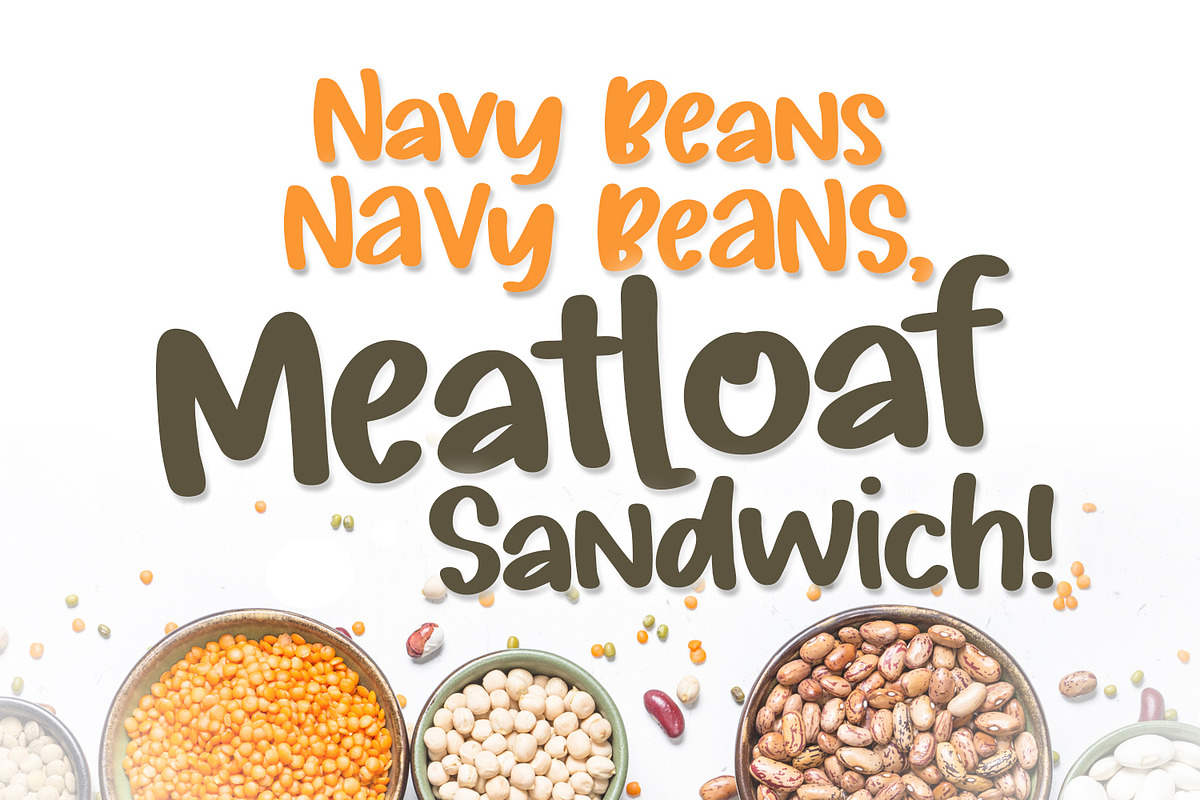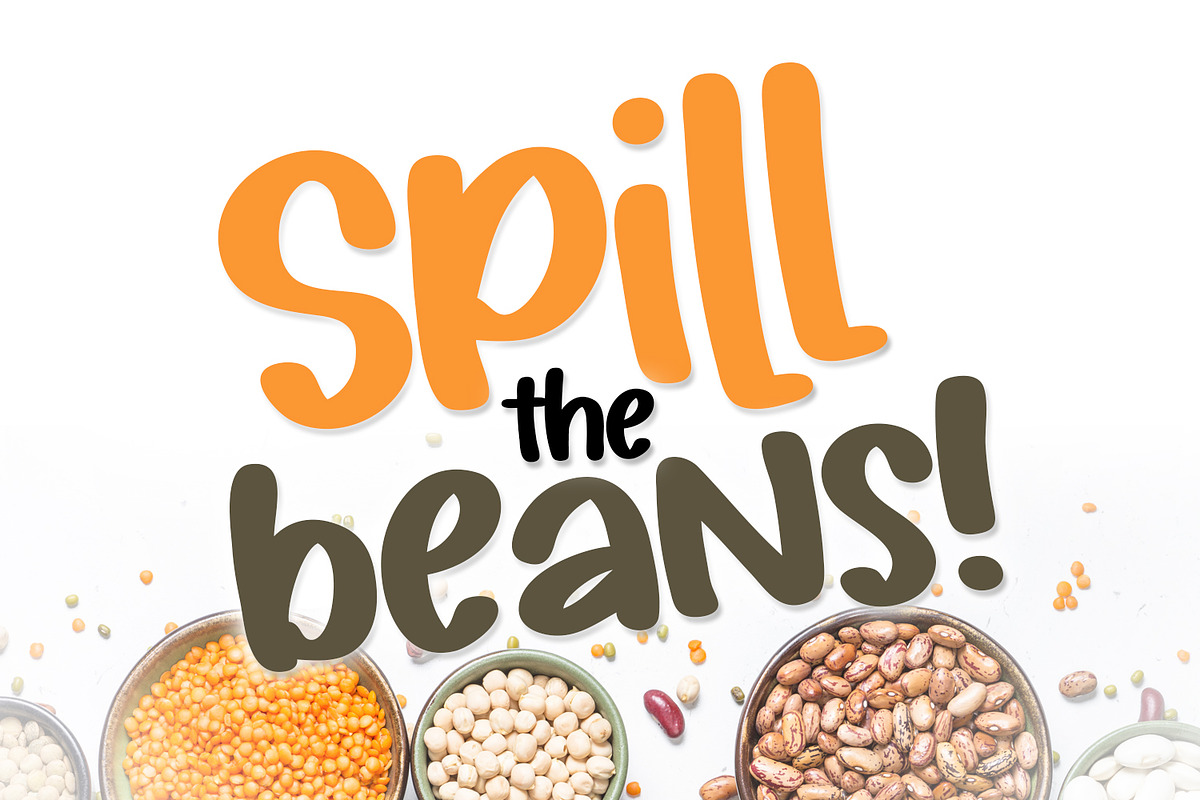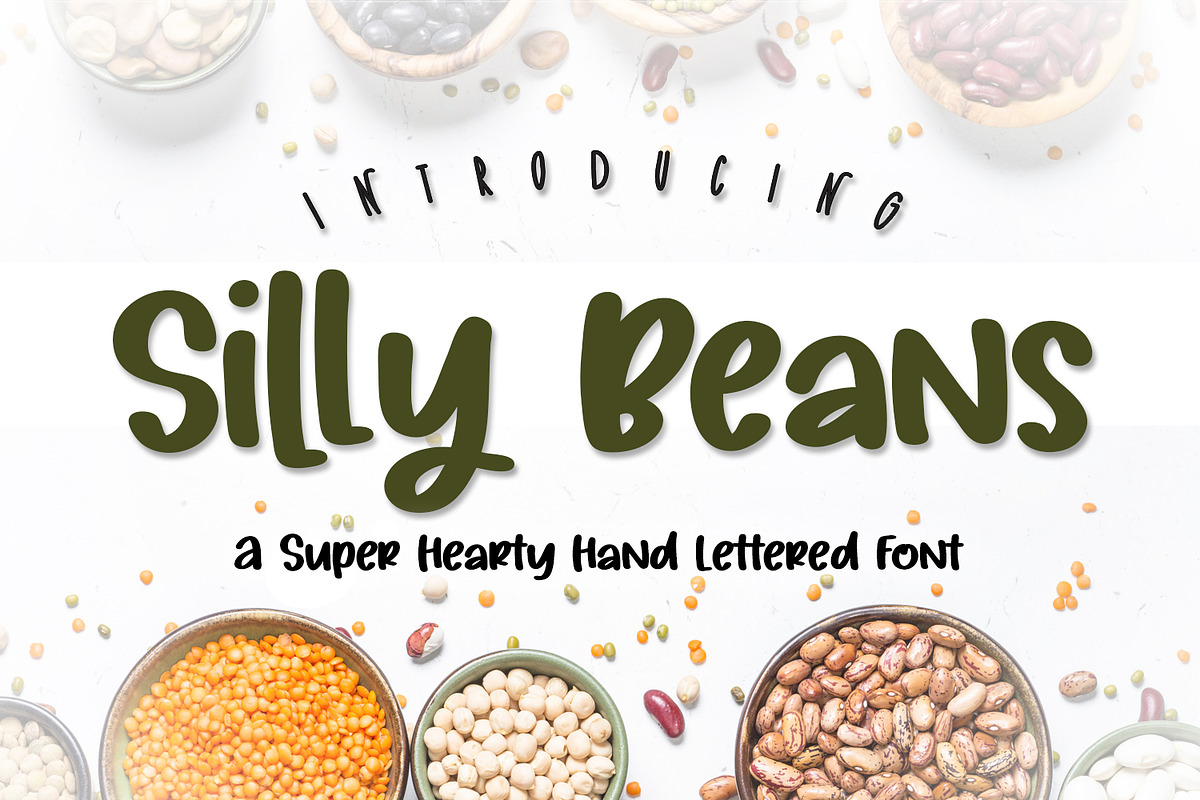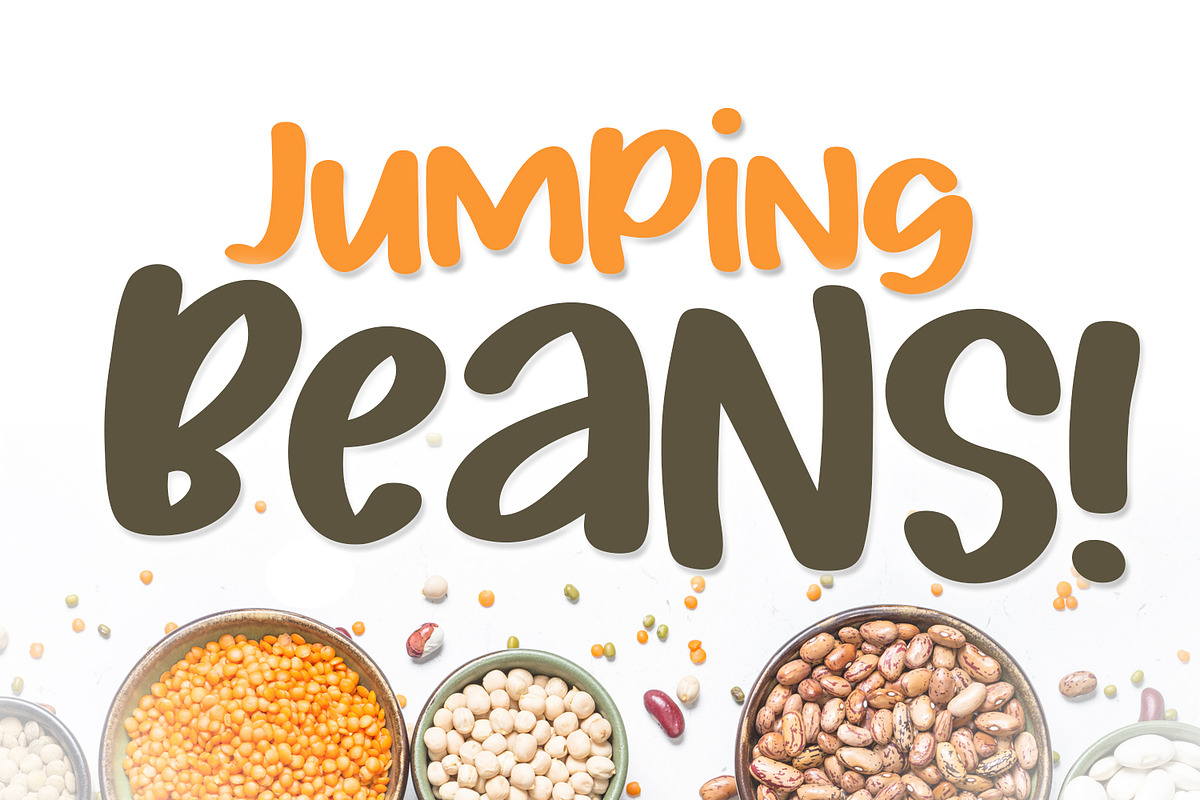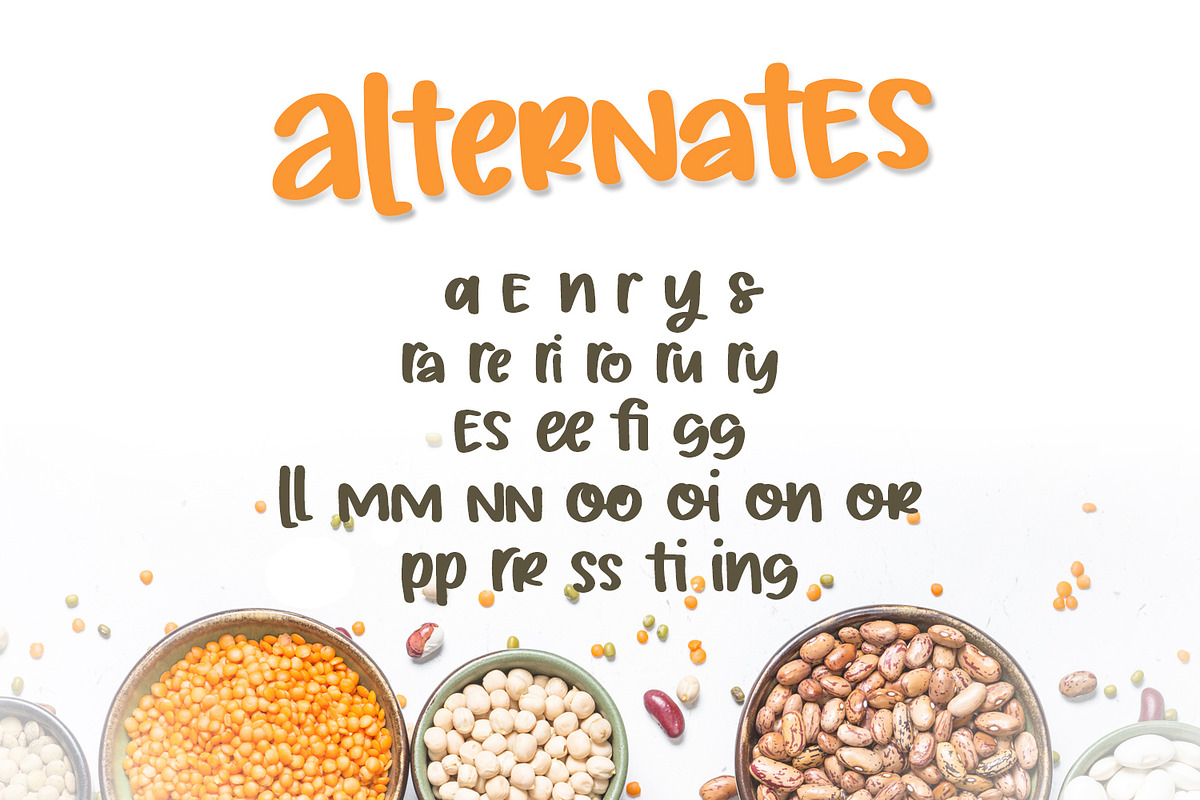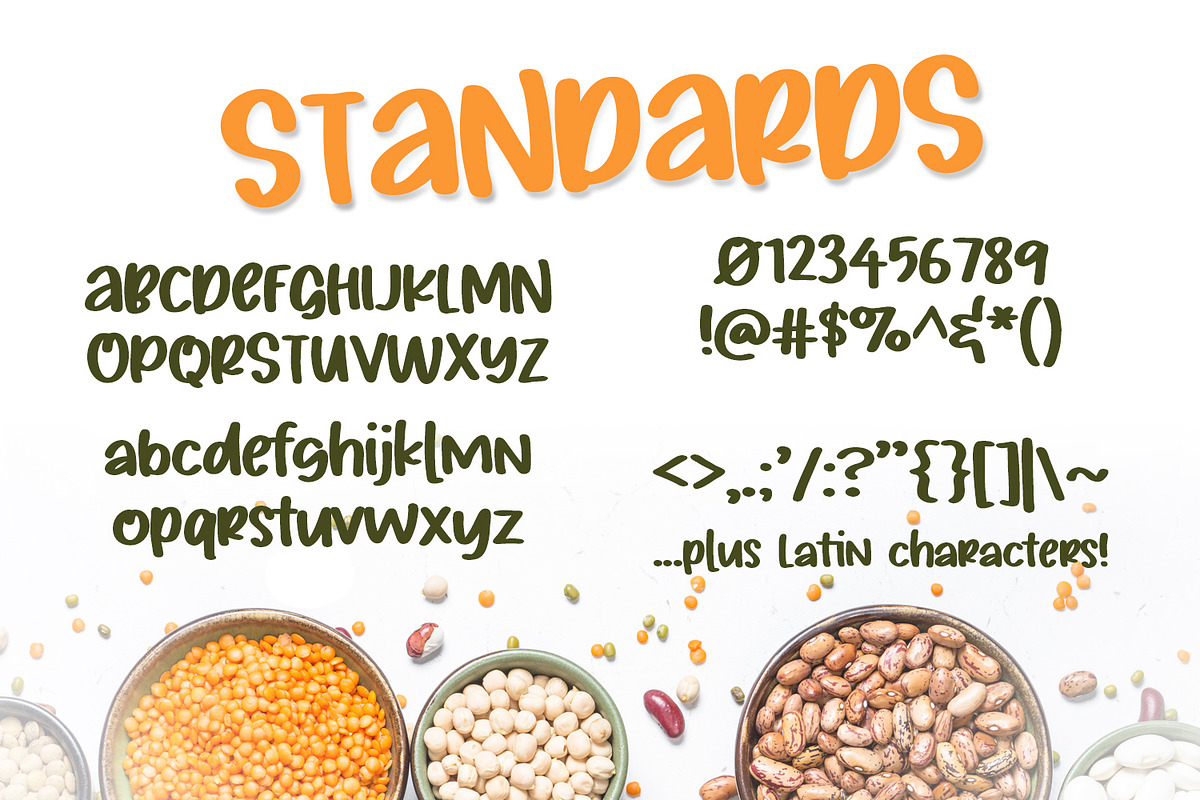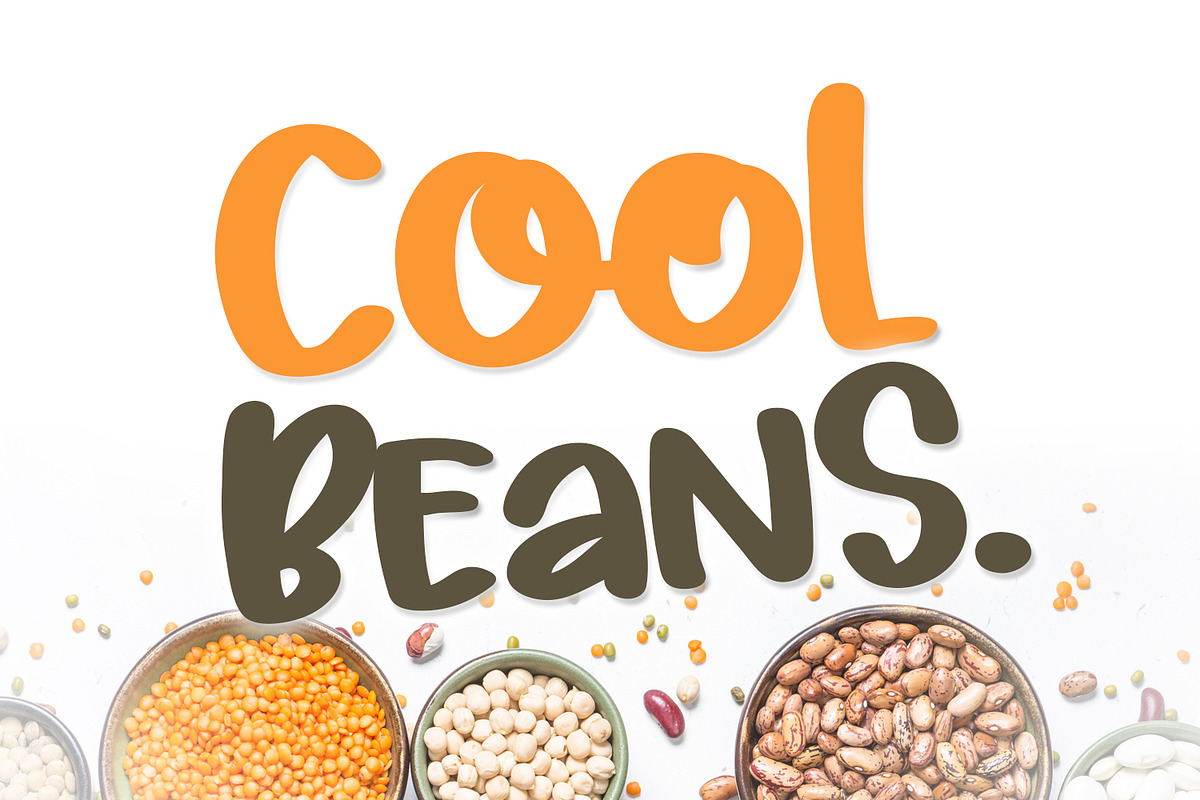
Silly Beans Font
A hearty hand lettered font with alternates!
Silly Beans Font by A Little Smidge fits naturally into Branding, posters, packaging, typography.